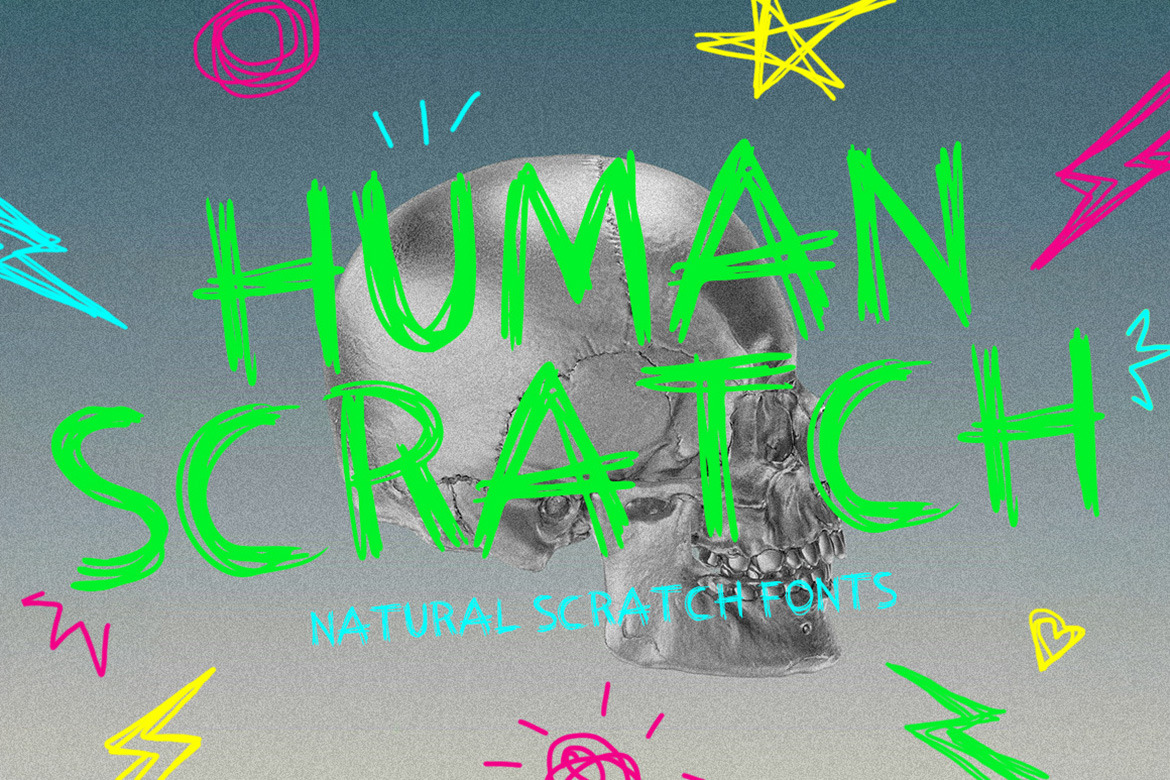
Human Scratch Fonts
Human Scratch is a bold, expressive font that captures the raw energy of handrawn strokes. Designed to look like it was roughly scratched by human hands, every letter carries an imperfect, organic feel that adds character and authenticity to your work.
This font embraces chaos in a beautiful way uneven lines, jagged edges, and natural inconsistencies make it feel alive and unapologetically real. It’s not meant to be perfect it’s meant to stand out.
Perfect for projects that need a strong, rebellious, or edgy vibe, such as street style designs, grunge posters, album covers, branding, or bold social media visuals.